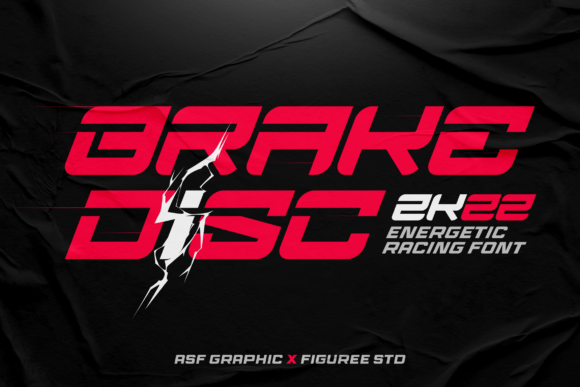
**Brake Disc Font: The Ultimate Racing Display Font for Your Sports and Automotive Creations**
Unleash the adrenaline rush with Brake Disc Font, a display font that embodies the raw energy and thrill of racing. This font is meticulously crafted to capture the essence of speed, power, and precision, making it the perfect choice for projects related to racing sports, automotive industries, and beyond.
**1. The Epitome of Racing Enthusiasm:**
Brake Disc Font ignites a passion for racing with its bold and sporty design. The characters exude a dynamic energy that's sure to leave a lasting impression on your audience. Whether you're designing racing jerseys, posters, or logos, this font will propel your messages to the finish line.
**2. Versatility at Its Finest:**
Brake Disc Font transcends the boundaries of racing-themed projects. Its versatility shines through in various applications, including headlines, branding, advertising, and packaging. This font effortlessly adapts to your creative vision, enhancing the impact of your designs and captivating the attention of your target audience.
**3. A Symphony of Automotive Elegance:**
Brake Disc Font pays homage to the sleek aesthetics of automobiles. The font's sharp edges and aerodynamic curves mirror the sculpted lines of high-performance vehicles. It's an ideal choice for logos, branding, and marketing materials related to the automotive industry.
**4. Unparalleled Detail and Craftsmanship:**
Every letter in Brake Disc Font is meticulously crafted with precision and attention to detail. The font's clean lines and crisp edges ensure legibility and a professional look, even in small sizes. Designers and artists will appreciate the high level of craftsmanship that goes into each and every character.
**5. A Catalyst for Creative Inspiration:**
Unleash your imagination and let Brake Disc Font spark a world of creative possibilities. This font's unique design adds a touch of excitement and dynamism to your projects, inspiring you to think outside the box and create truly exceptional designs.
**6. The Perfect Choice for Your Automotive and Racing Projects:**
Whether you're a designer, marketer, or business owner, Brake Disc Font is the ultimate tool for creating impactful and memorable designs related to racing and automotive industries. Its versatility and captivating aesthetics make it a valuable asset for any creative professional looking to leave a lasting impression.